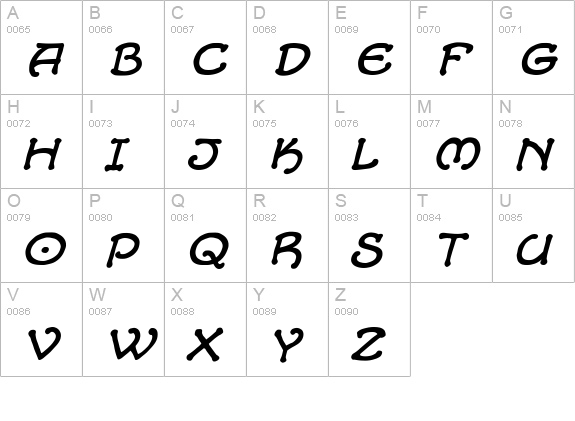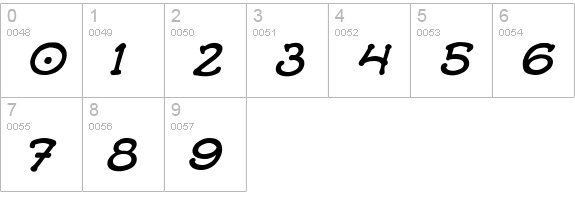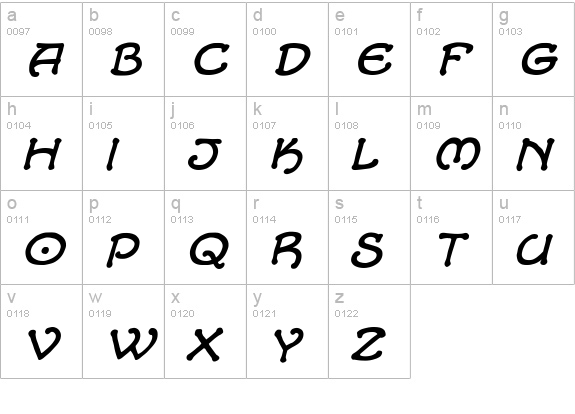
CCAlchemite-Italic Font Details
CCAlchemite-Italic is a distinctive, italic variant in the CCAlchemite typeface family \xE2\x80\x94 well suited to design and typography projects.
CCAlchemite-Italic font is a stunning display typeface that exudes elegance and sophistication. Its sleek and modern design makes it perfect for a wide range of projects, from branding to editorial design. The italicized style adds a touch of flair and sophistication to any text it graces. This font is not only visually appealing but also highly versatile, making it suitable for a variety of applications. Whether you're designing a logo, creating a poster, or crafting a website, CCAlchemite-Italic font is sure to make a statement. And the best part? CCAlchemite-Italic font is available for free download at FontsMarket.com. So, why wait? Add this beautiful font to your collection today and elevate your designs to the next level.